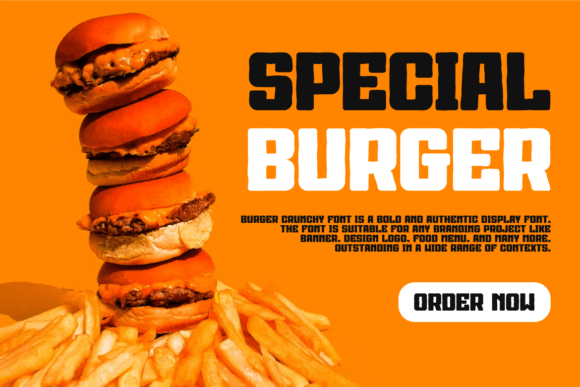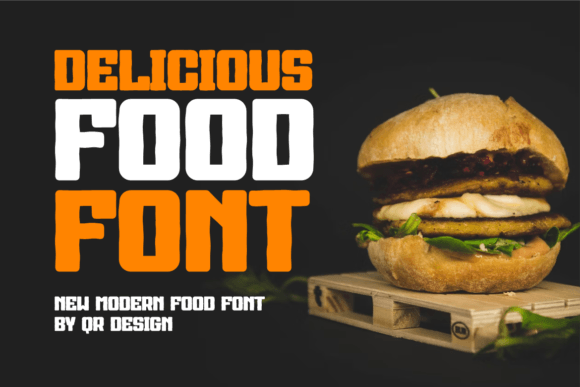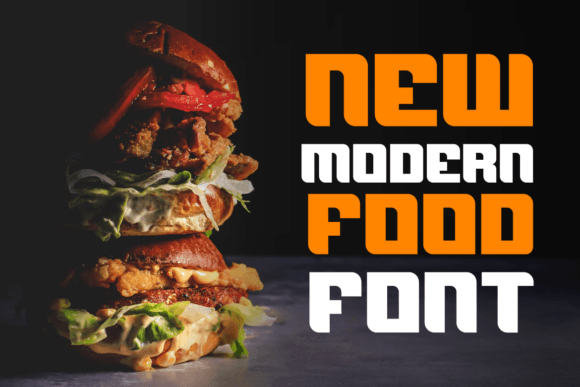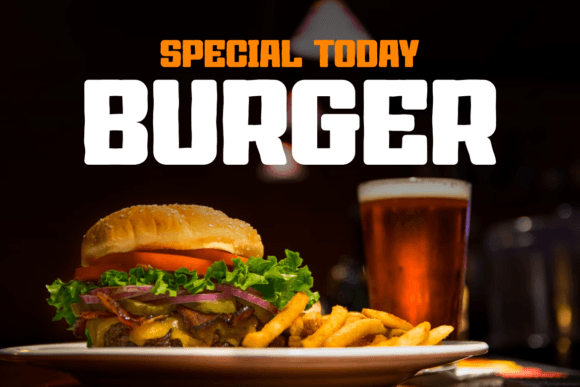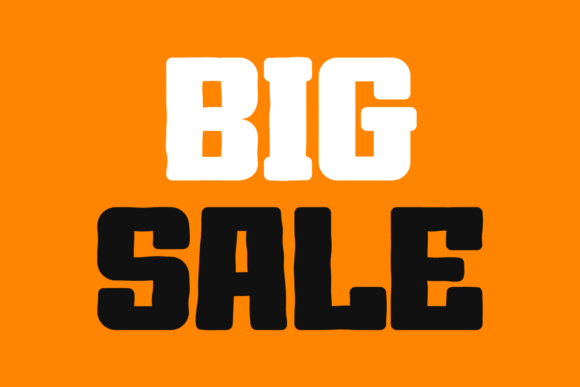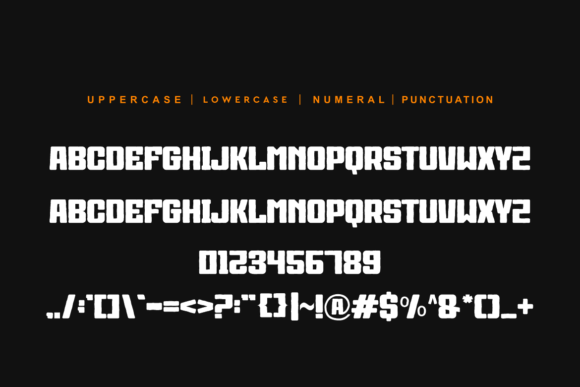
Burger Crunchy Font: The Secret to Making Your Designs Pop
Remember that moment when you were brainstorming a new project, and you just couldn’t seem to get the creative juices flowing? You stared at a blank canvas, wondering what would make your design truly stand out. The solution often lies in the smallest of details – like the font you choose. That’s where Burger Crunchy Font comes in, a fun and playful sans serif font designed to add a dash of excitement to your creative ideas.
By incorporating Burger Crunchy Font into your designs, you can instantly elevate the tone and make your message more engaging. Whether you’re working on a branding project, a social media campaign, or a marketing brochure, this versatile font is sure to bring a smile to your audience’s face. For designers, Burger Crunchy Font is a valuable asset in their toolkit, providing a creative solution to add visual interest and personality to their work.
Burger Crunchy Font Key Features
- Font Family: Burger Crunchy Font comes in 4 font styles – Regular, Bold, Italic, and Bold Italic.
- Unique Characteristics: Features a unique crunchy texture that adds a tactile feel to digital text, making it ideal for food-related branding and packaging design.
Burger Crunchy Font Review
Overall, I’m quite impressed with the Burger Crunchy Font. It has a unique, playful vibe that’s perfect for fast food restaurants, cafes, and other casual eateries. Here’s what I like about it: ✨
- Fun and quirky personality that adds a lighthearted touch to menus and signage
- Good legibility, even at smaller font sizes
- Variety of weights and styles available for customization
However, there are a few limitations I’d like to mention: ⚠️
- Limited use cases outside of the fast food industry (it may not be the best choice for formal or professional applications)
- Some characters may not be optimized for digital use (e.g. kerning issues in certain words)
- No support for certain special characters or languages
Overall, I think the Burger Crunchy Font is a great choice for the right projects. While it may not be the most versatile font, its unique personality and customization options make it a standout in the fast food and casual dining niches.
Some tips for getting the most out of Burger Crunchy Font include:
- Using it for headings and titles to add a playful touch.
- Combining it with other fonts for a unique and eye-catching design.
- Adjusting the font size and style to fit your design needs.